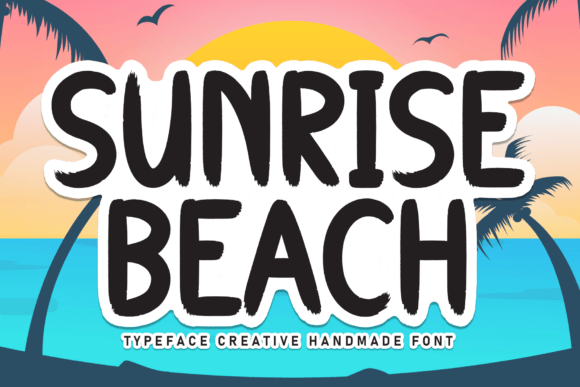
Unleash the magic of "Sunrise Beach" - the font that captures the essence of endless summer days, glistening ocean waves, and playful beach vibes. Immerse yourself in a world of coastal charm and let your creativity soar with this enchanting handwritten display font.
"Sunrise Beach" is more than just a font; it's an invitation to escape the ordinary and embrace the extraordinary. Its delightful curves and playful strokes dance across your designs, evoking a sense of joy and lightheartedness. With its captivating beauty, "Sunrise Beach" transforms your words into works of art, whether it's a heartfelt greeting, whimsical logo, or a heartwarming invitation.
Imagine crafting wedding invitations that evoke the romance of a seaside ceremony, where the gentle whisper of waves serenades your guests. Create cards that exude warmth and cheer, carrying your heartfelt messages with an irresistible touch of whimsy. Design product packaging that radiates the carefree spirit of summer, inviting customers to bask in the glow of coastal bliss. The possibilities are endless, and the only limit is your imagination.
With "Sunrise Beach," you'll discover a font that resonates with your audience on a deeper level. Its endearing personality adds a touch of humanity to your designs, making them instantly relatable and memorable. Whether you're a seasoned designer or just starting your creative journey, "Sunrise Beach" is the perfect companion for adding a spark of playfulness and authenticity to your projects.
So, embark on this enchanting journey with "Sunrise Beach," and let your designs shine with the brilliance of a summer sunrise. Embrace the font's captivating allure and watch as your creations transform into captivating expressions of joy, love, and boundless imagination.